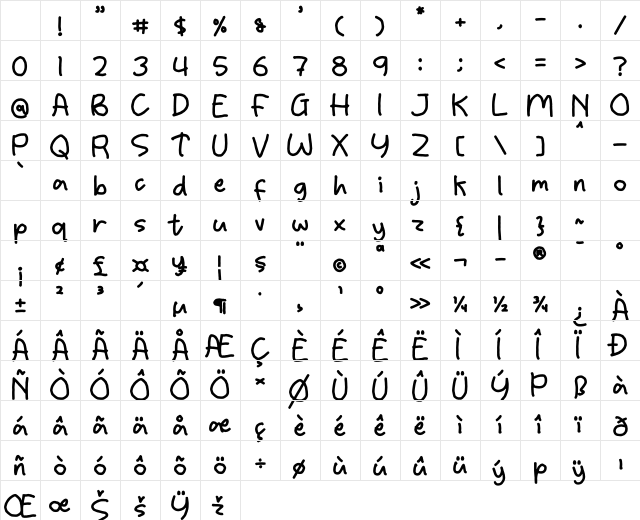
Complete Rostenfly Regular glyph index. Displaying only characters natively supported by Rostenfly Regular font.
Rostenfly is a composed and adaptable typeface that performs quietly and consistently across a wide range of design contexts.